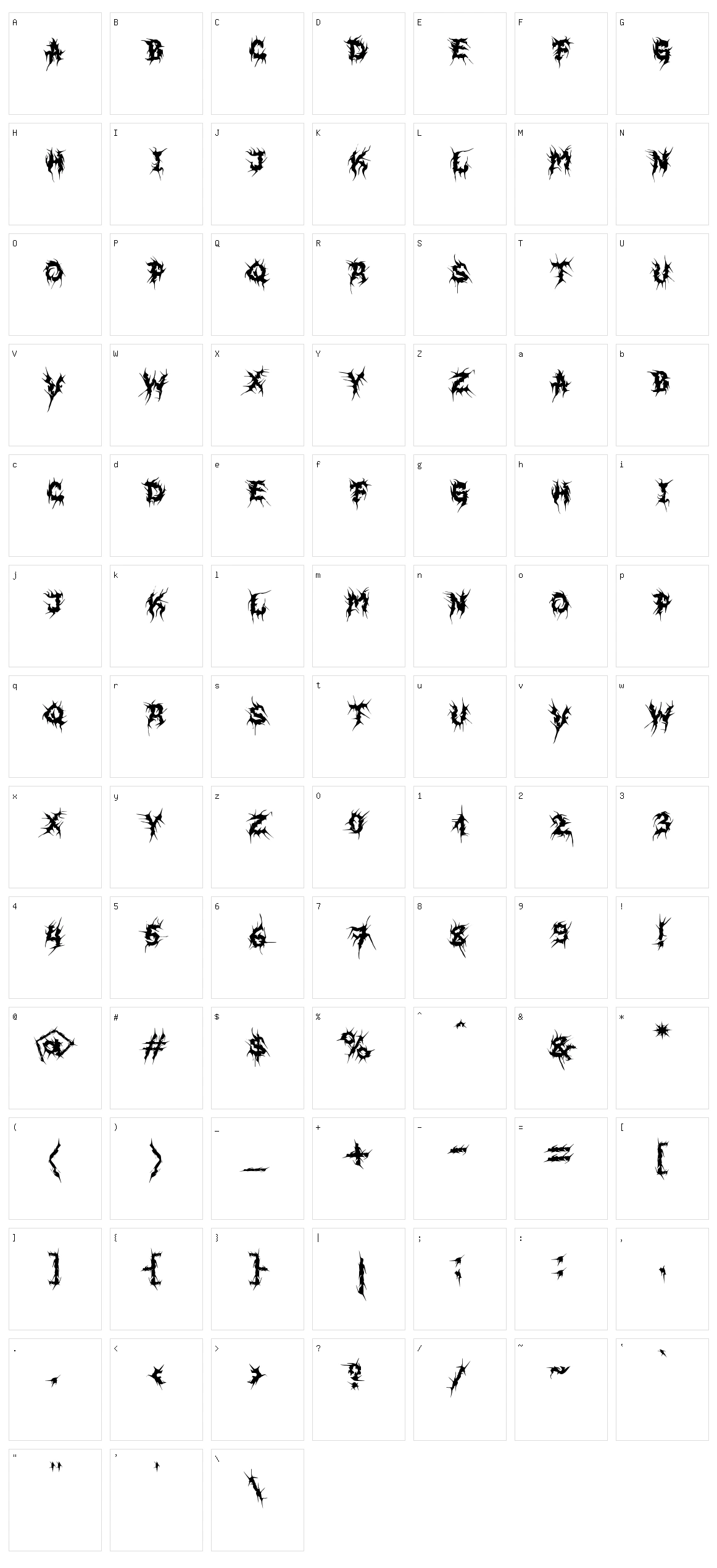
MB-EvilGhost - Raw, Horror, Death Font by ModBlackmoon. [Hand-drawing + Photoshop]
INFO:
Incl. English, European and Cyrillic letters and Numbers. May be scaled to extra large size without quality loss.
Designed: November 2010.
Author: ModBlackmoon